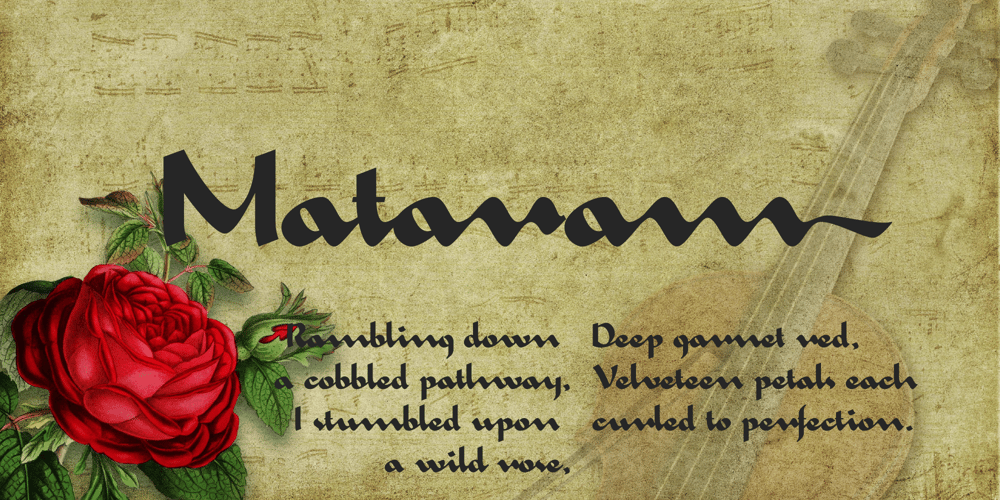
Mataram
Mataram font
Mataram Font Family was designed by Muhammad Hastian and published by Hazztype. Mataram contains 1 styles and family package options. Mataram is a vintage script font, created using a parallel pen, and then refined on a computer. You can use Mataram to create interesting designs, covers, shop and store names, and logos.The font Mataram is also perfect for branding projects, Apparel Designs, Product packaging – or simply as a stylish text overlay to any background image.